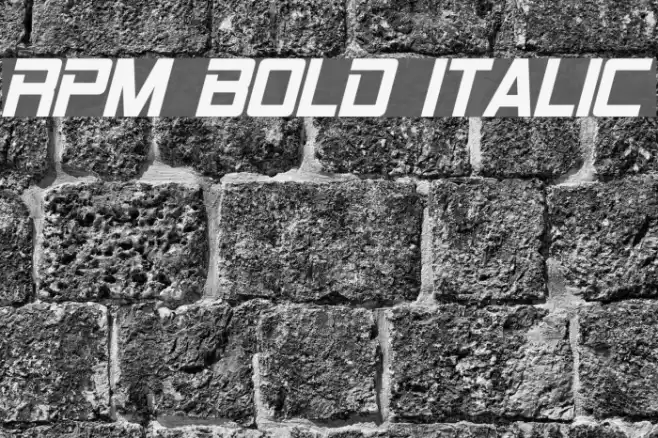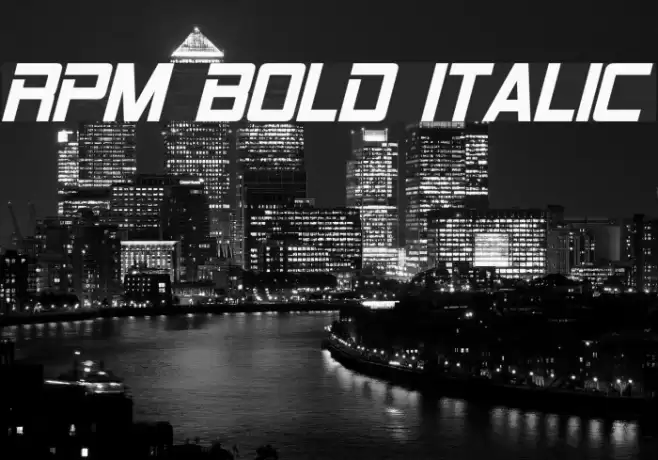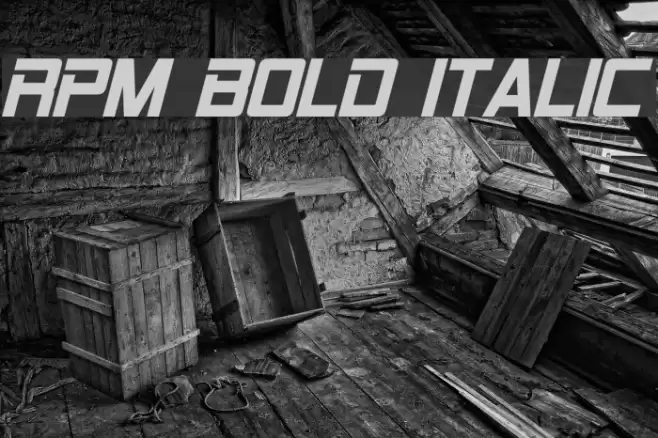
RPM Bold Italic Font
RPM Bold Italic Description
This font features a bold and italicized style, characterized by its strong, angular lines and dynamic slant. The letters are designed with a futuristic and sporty aesthetic, making them ideal for projects that require a sense of speed and modernity. The uppercase and lowercase letters maintain a consistent slant, enhancing the font's cohesive appearance. The numerals and special characters follow the same design principles, ensuring uniformity across all elements. The font's bold weight and italic style contribute to its striking presence, making it suitable for attention-grabbing headlines and titles.
A bold, italicized font with a futuristic and sporty design from Uncategorized fonts.
- Proposed Projects: Ideal for sports branding, automotive designs, futuristic themes, and dynamic advertising campaigns.